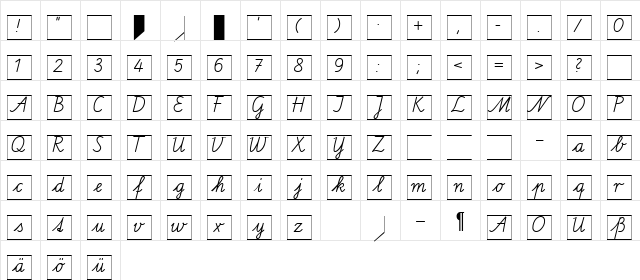
SP SAS Quadrat Normal
Design Context for SP SAS Quadrat Typeface
SP SAS Quadrat takes a measured approach to typography — its balanced proportions and neutral character make it a reliable workhorse for both digital and print work.